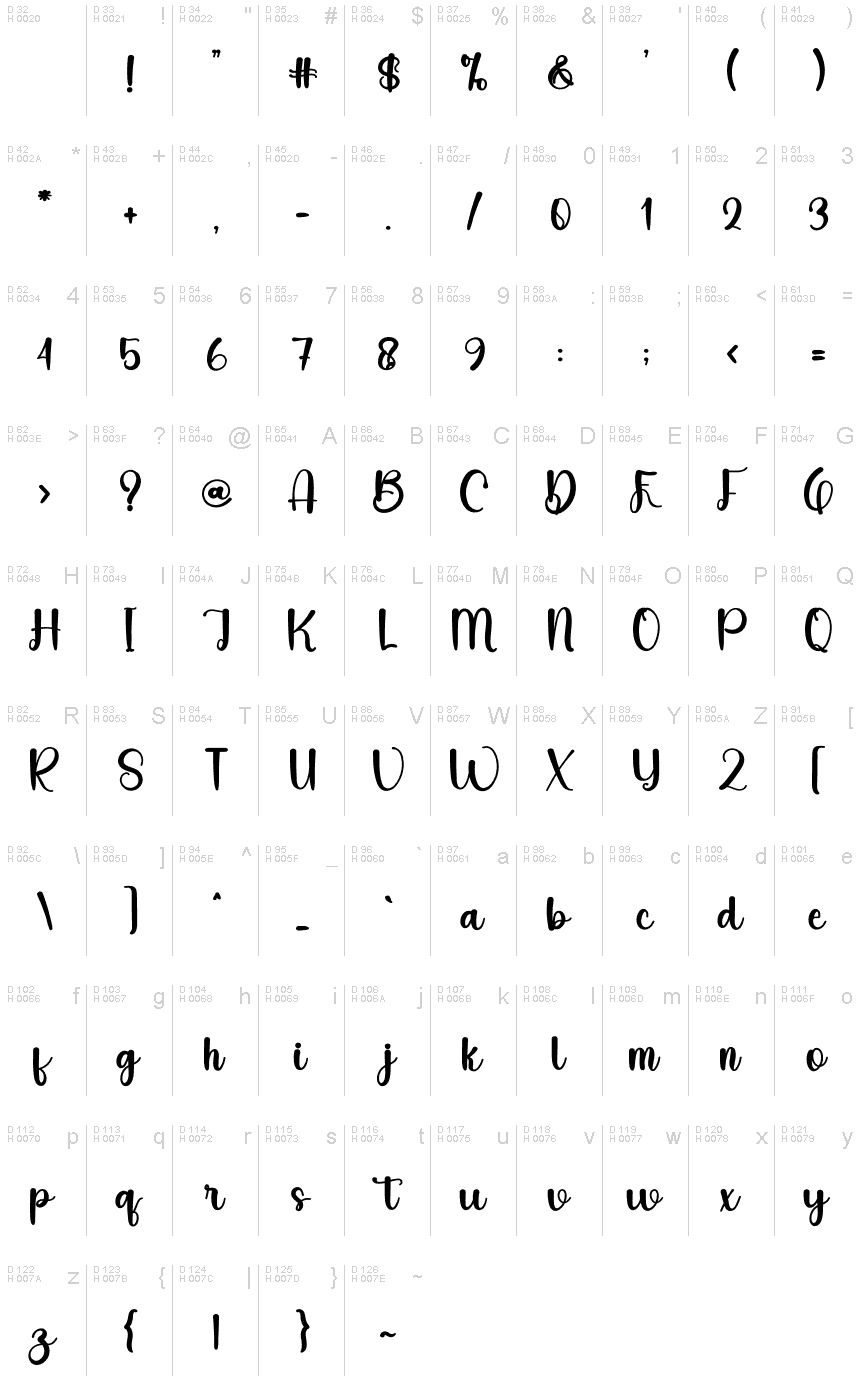
Style
Style, crafted by the talented Inermedia Studio, is a captivating handwritten font that adds an artistic touch to any project. Its unique strokes and organic flow make it perfect for creative endeavors such as logo design, branding, and poster creation. Whether you're seeking a bold font for your edgy fashion blog or a delicate typeface for your vintage-inspired wedding invitations, Style has got you covered. With its versatile nature and timeless appeal, this font is sure to make a lasting impression on your audience. Let Style elevate your designs to new heights of elegance and sophistication.